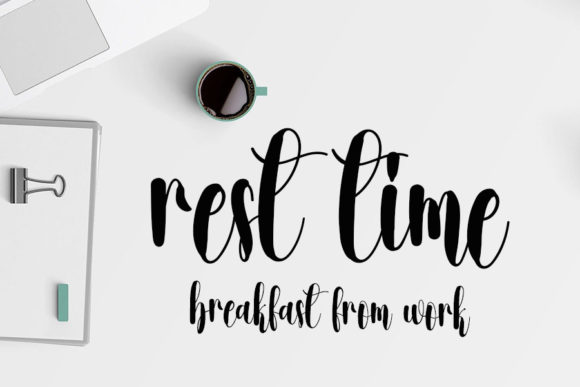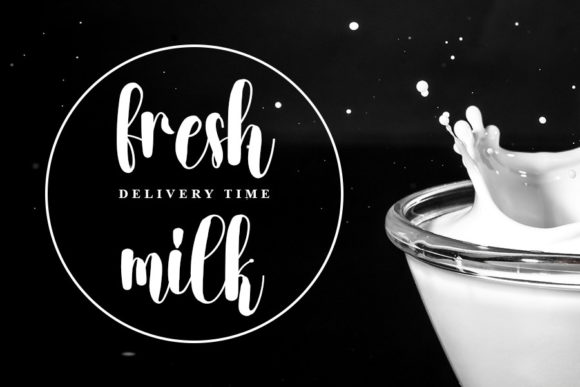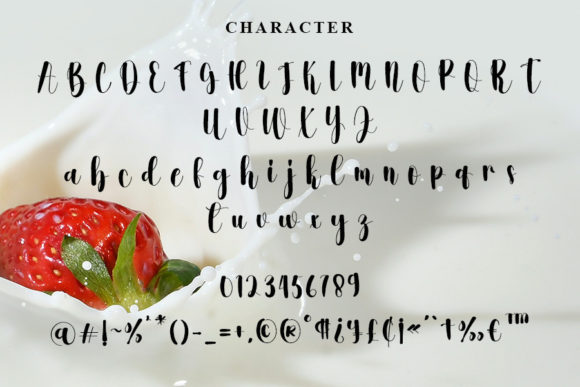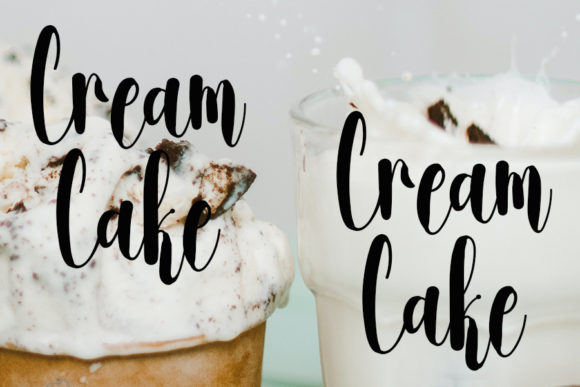
Introduction to Milkdrink Font
Have you ever stared at a blank canvas, feeling the weight of a creative project looming over you, and suddenly, the perfect font pops into your mind? For designers, that moment of inspiration can be the difference between a mediocre design and a masterpiece. And for those who’ve been there, we’re excited to introduce you to the Milkdrink Font – a game-changing addition to your design arsenal.
As a high-quality design resource, the Milkdrink Font is a must-have for any creative project. Its natural, handwritten style is incredibly versatile, making it perfect for a wide range of designs, from logos to social media graphics. And the best part? It’s available for a free download, so you can experiment with it without breaking the bank.
Key Features of Milkdrink Font
- High-quality design resource for creative projects, perfect for modern and playful designs.
- Features a unique, hand-drawn style that adds a touch of whimsy and personality to any design project.
Honest Review: Milkdrink Font
I recently had the chance to work with the Milkdrink Font, and I must say it’s a great addition to any design resource. One of the standout features is its high quality and crisp typography, which makes it perfect for any creative project.
However, there are a few limitations to consider: ⚠️ Not as extensive a character set as some other fonts ⚠️ Not ideal for use in body text, as it can be a bit too ornate for that purpose
Overall, I was impressed with the Milkdrink Font. It’s a great choice for titles, headings, and other display text, and its free download makes it a great resource for designers on a budget. If you’re looking for a high-quality font to add some flair to your design, I’d definitely recommend giving it a try.
The Milkdrink Font is a versatile font that can be used in a variety of creative projects, including logos, social media graphics, and presentations. Its transparent background makes it easy to use in designs where a background image or color is already present.
Yes, the Milkdrink Font has a transparent background, making it ideal for use on top of images or other design elements. This feature allows for greater flexibility and creativity in your design projects.